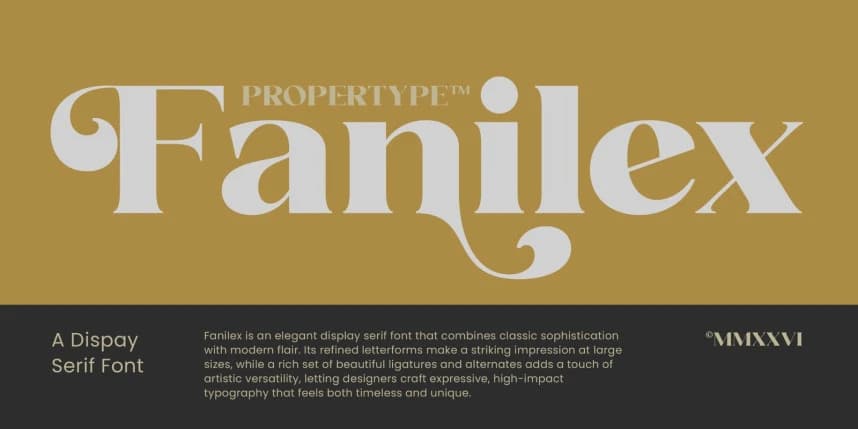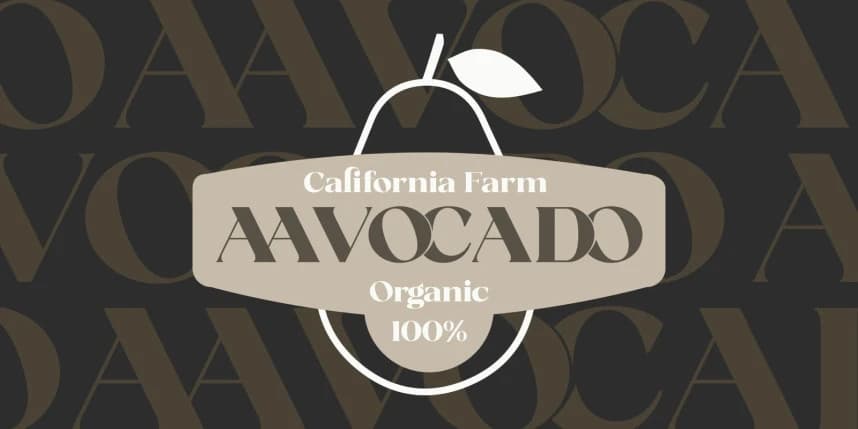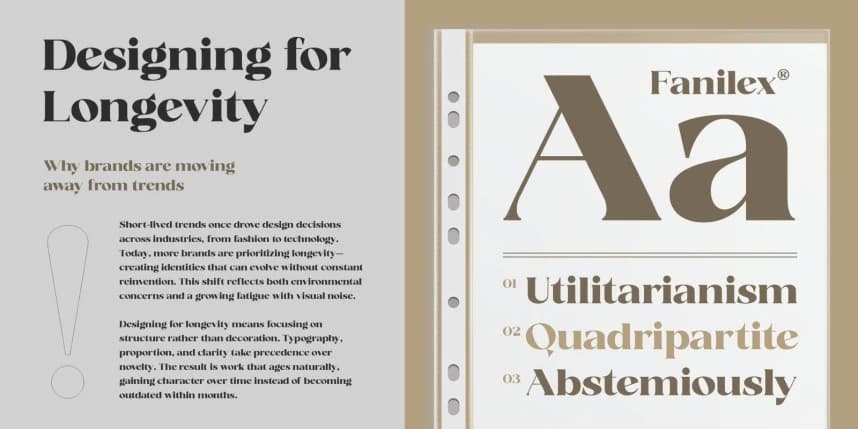
Fanilex Font Family
Fanilex Font Family is a classic editorial serif typeface that blends the timeless elegance of traditional typography with a refined contemporary touch. Designed for beauty and versatility, Fanilex offers numerous alternates and ligatures